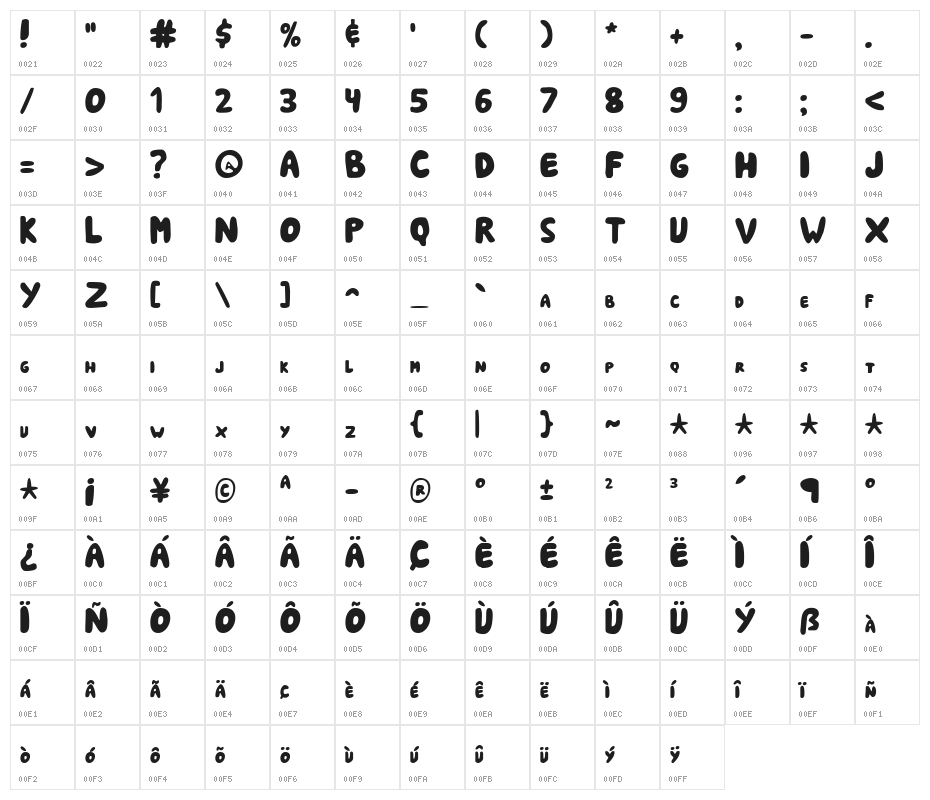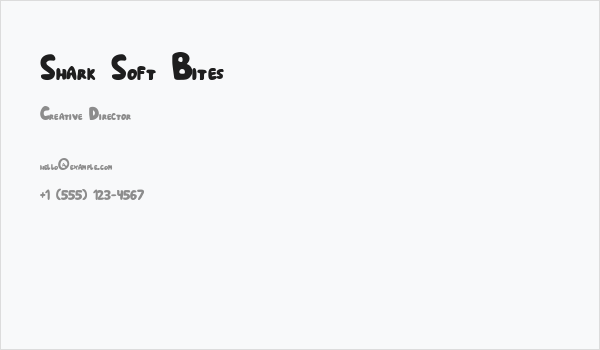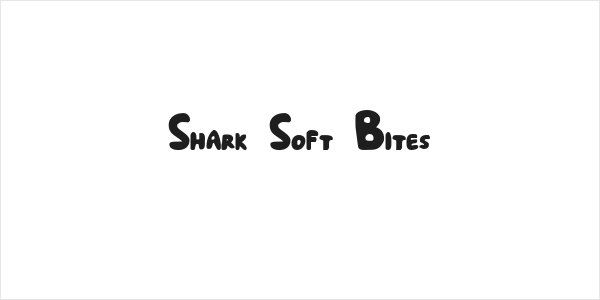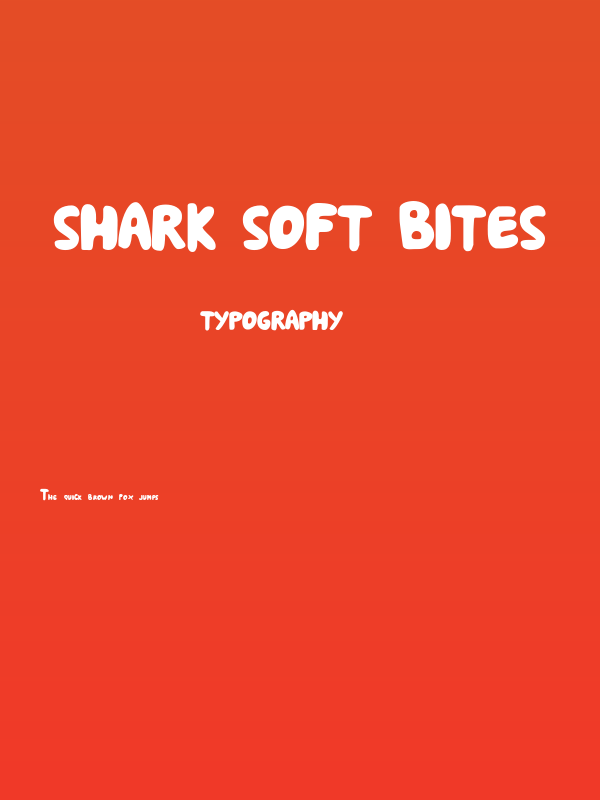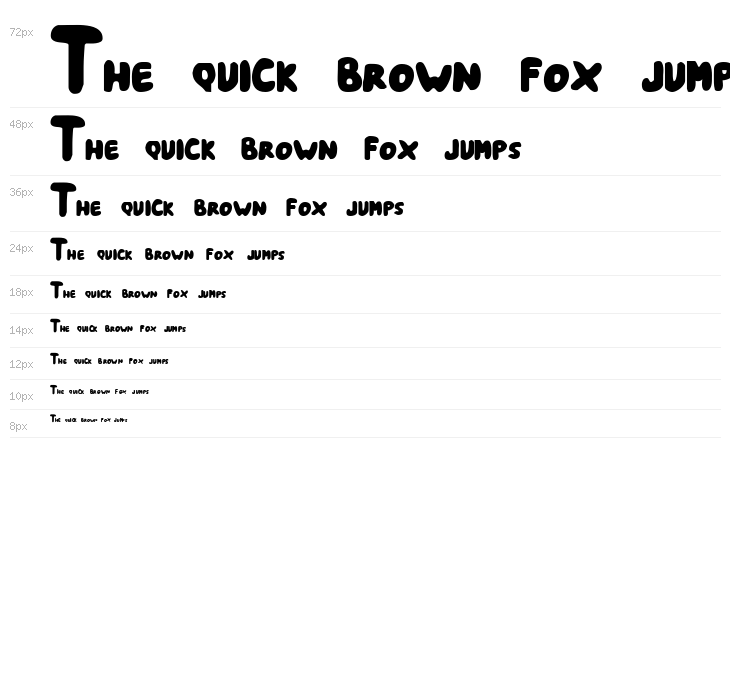
Shark Soft Bites Font
Shark Soft Bites Description
This playful and bold font features rounded, bubbly characters that convey a sense of fun and approachability. The letters are thick and have a soft, friendly appearance, making them ideal for designs that aim to be inviting and engaging. The font maintains a consistent weight throughout, with smooth curves and a slightly exaggerated form that enhances its whimsical nature. The numbers and special characters follow the same design principles, ensuring a cohesive look across all elements. This font is perfect for projects that require a touch of humor and lightheartedness.
| Proposed Projects | Ideal for children's books, playful branding, party invitations, and casual posters. |